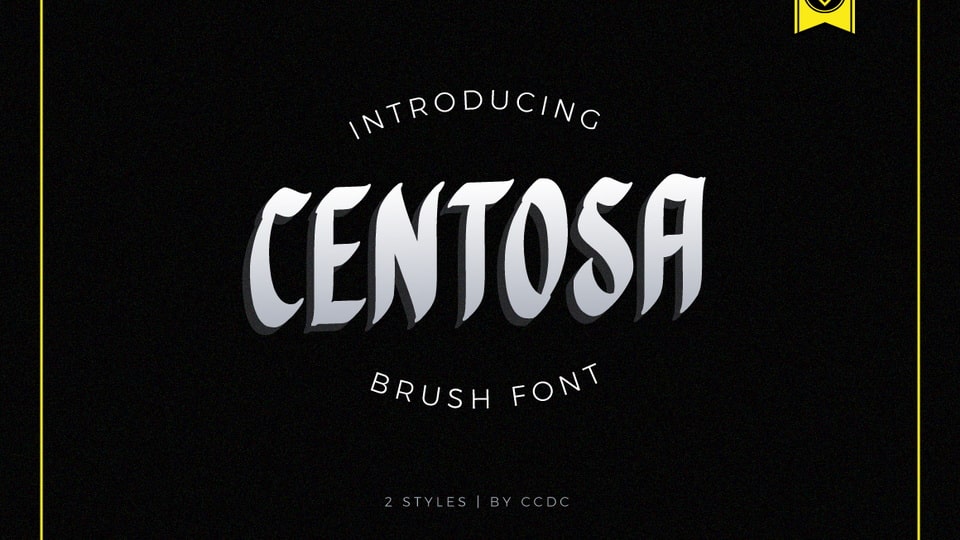
Download Centosa font, a personal take on the typical brush letterings and sign paintings present around the streets of the metro. Traditional brush letterforms of Centosa imbued with industrial squared lettering style with emphasis on consistency all deliver an appearance that is assertive, aesthetic, and artisan.
Designer: Chris Cruzalde